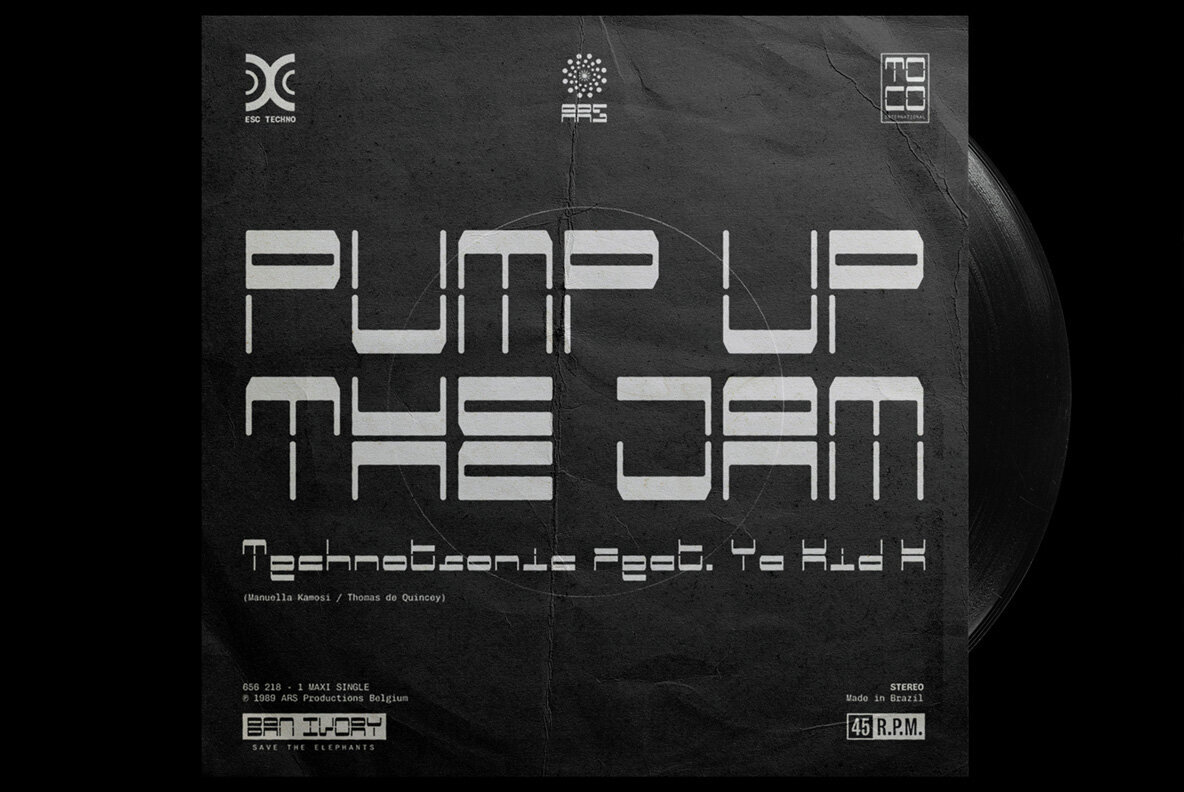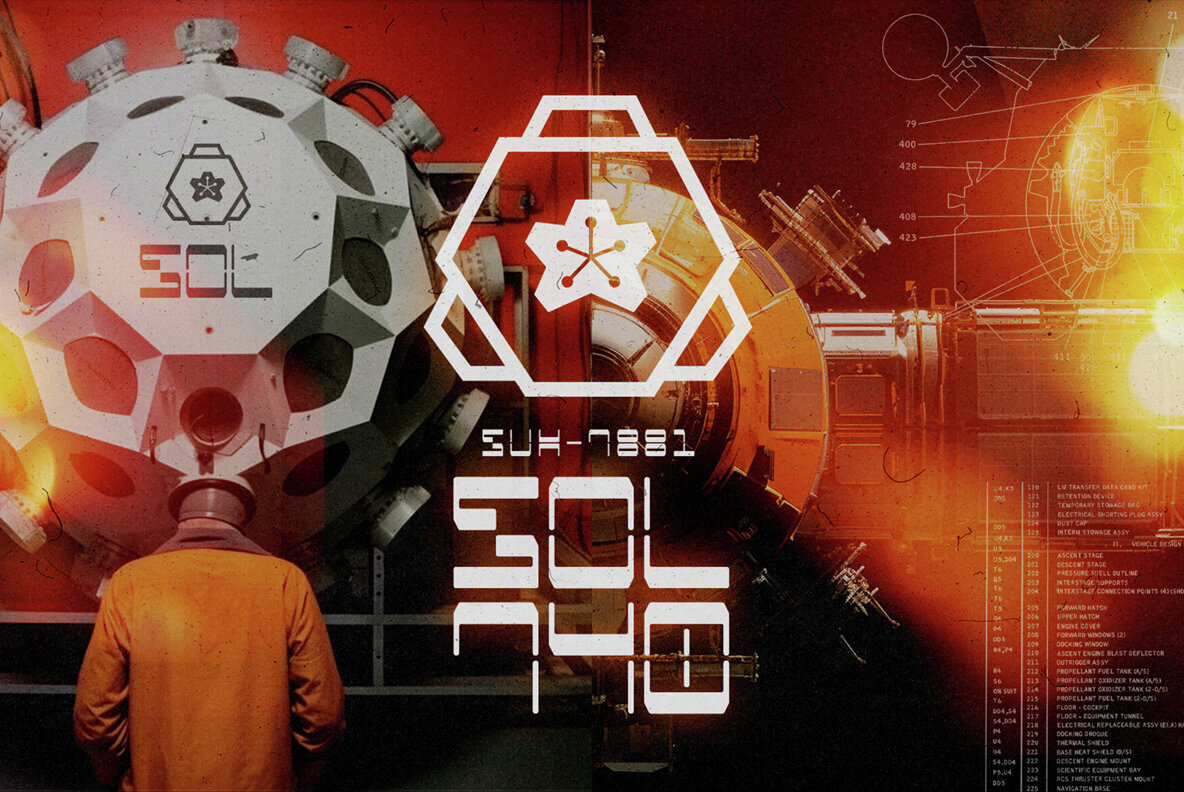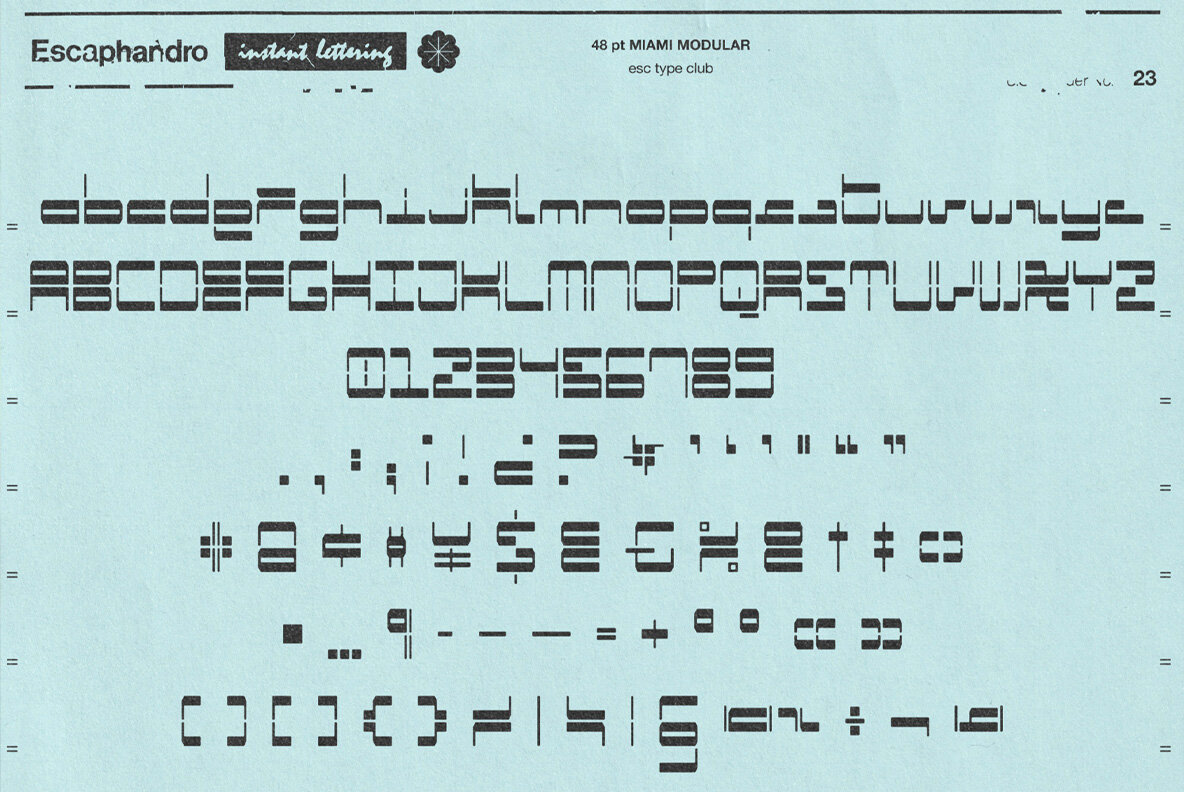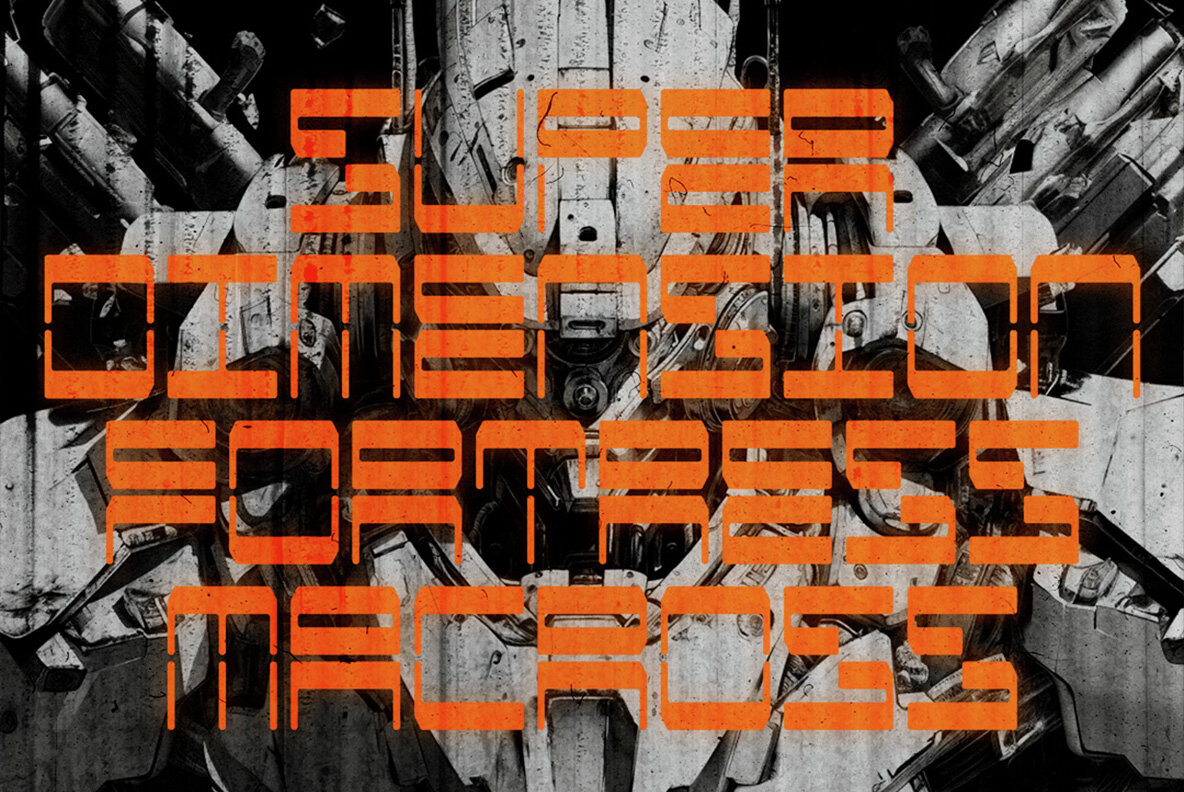
Miami Modular Font
Miami Modular
Miami Modular is an exercise in geometric typography based on retro-futuristic scifi themes and modernist graphic design. Ideal for large-size applications and logotype construction.